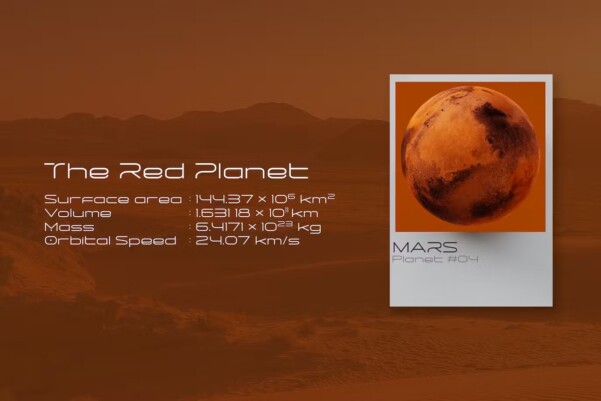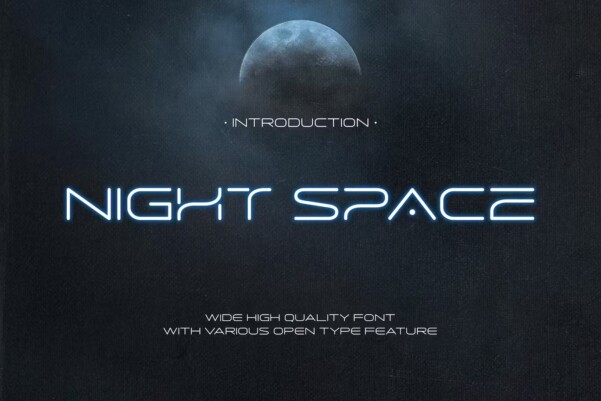
NIght Space Font
Night Space Font A captivating typeface inspired by the vastness and wonders of the cosmos. Designed specifically on the theme of space, NIGHT Space embodies the ethereal beauty of the universe and brings a touch of celestial elegance to your written creations. Each Night Space letter is meticulously crafted to reflect the mysteries and grandeur of outer space. Night Space glyphs possess a unique interstellar quality